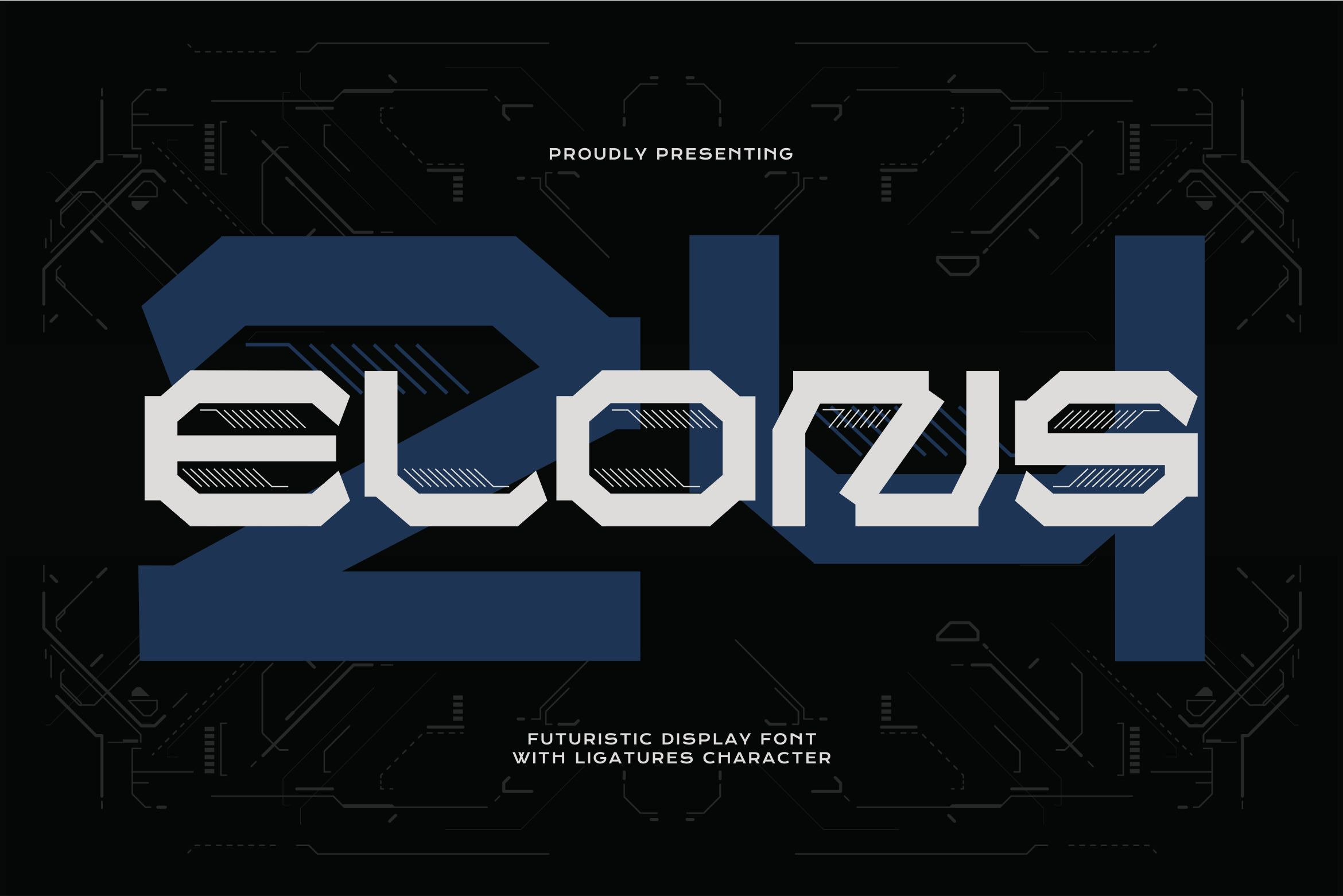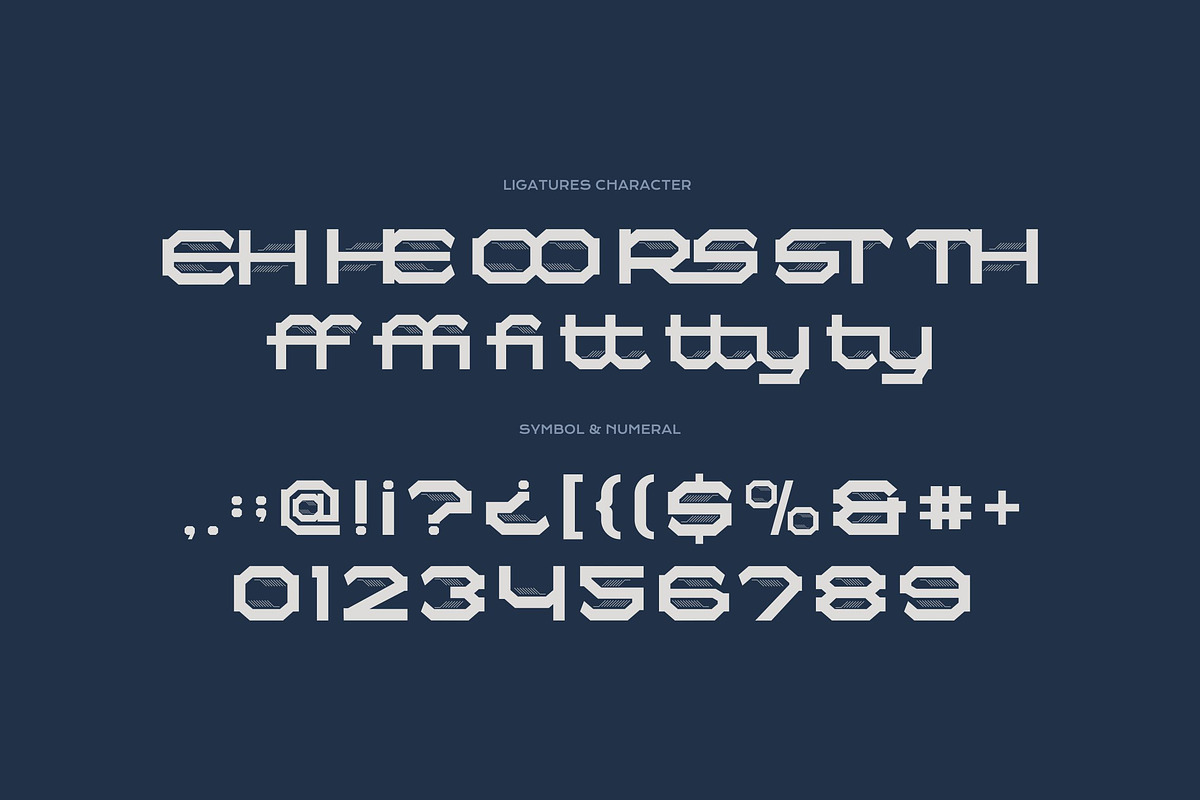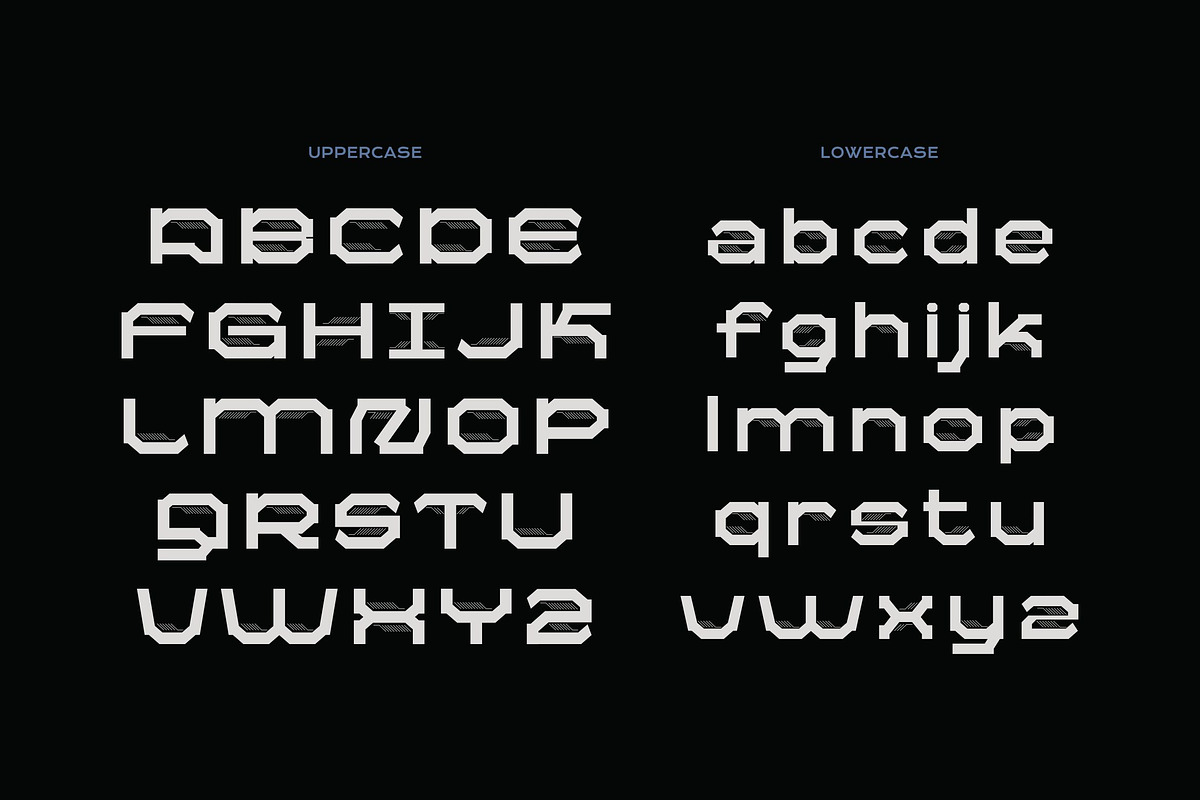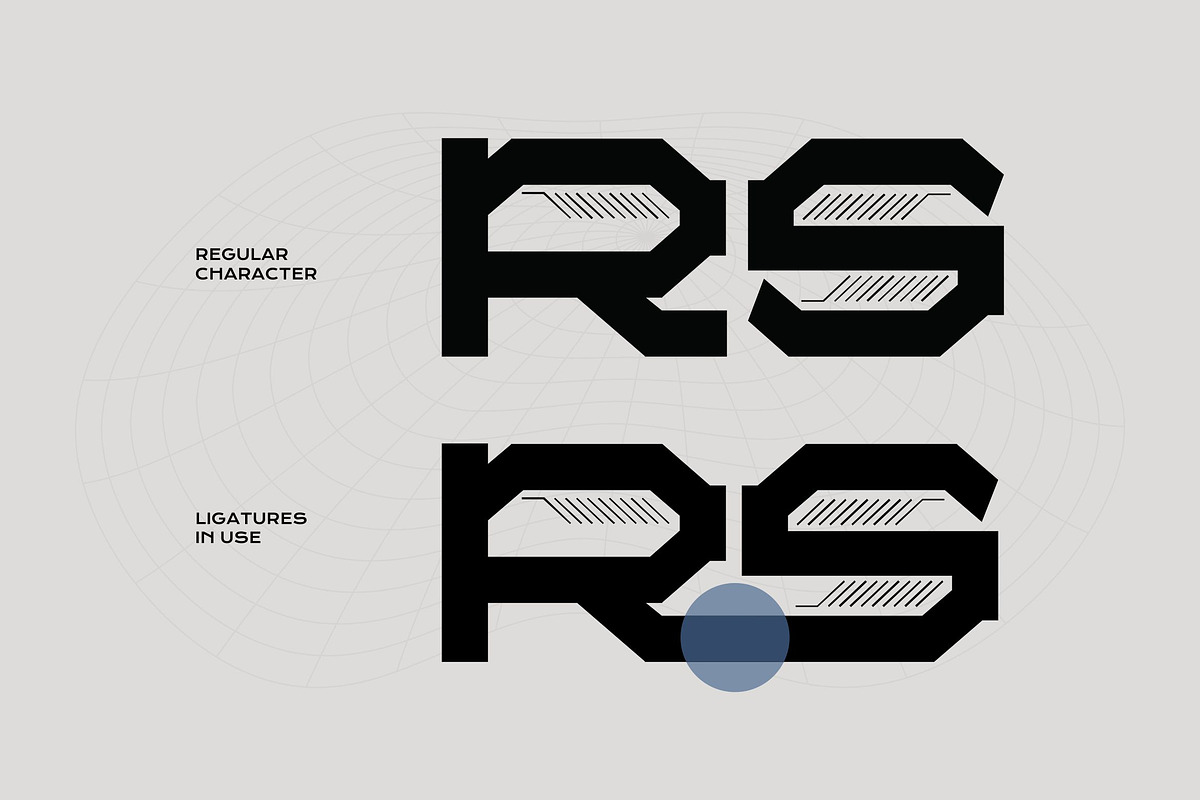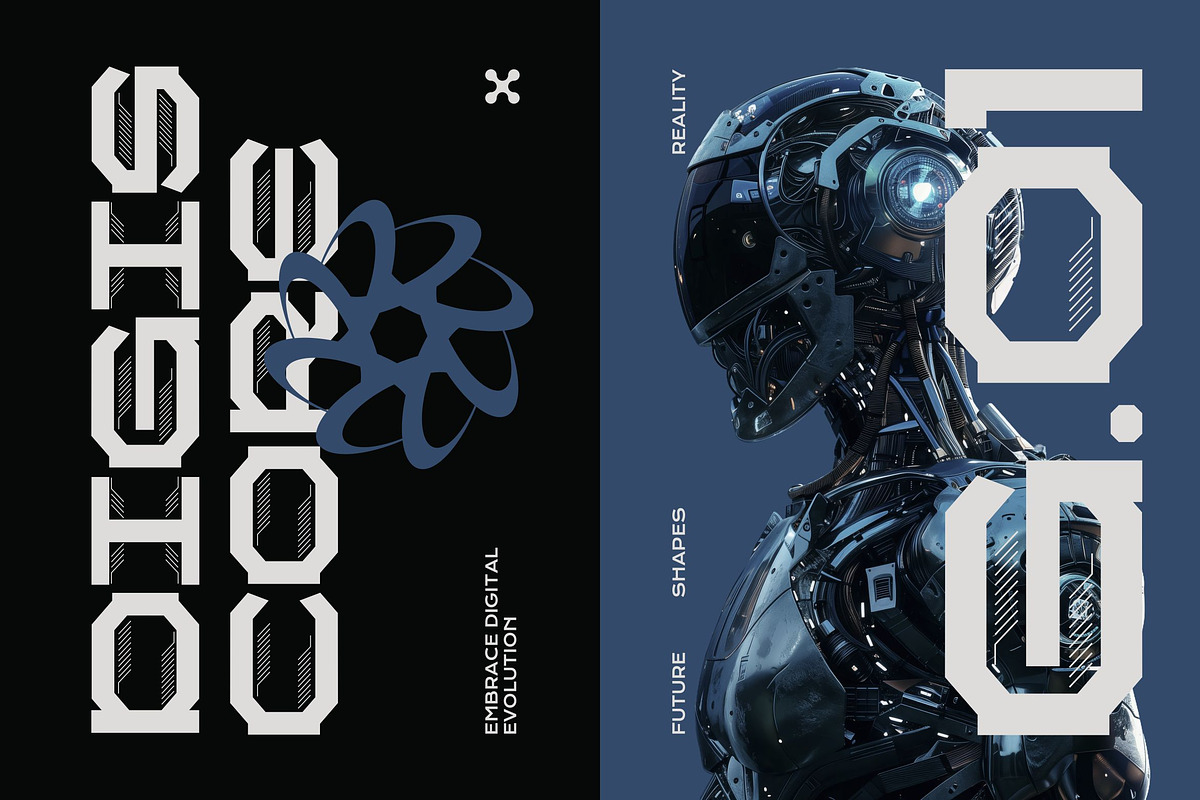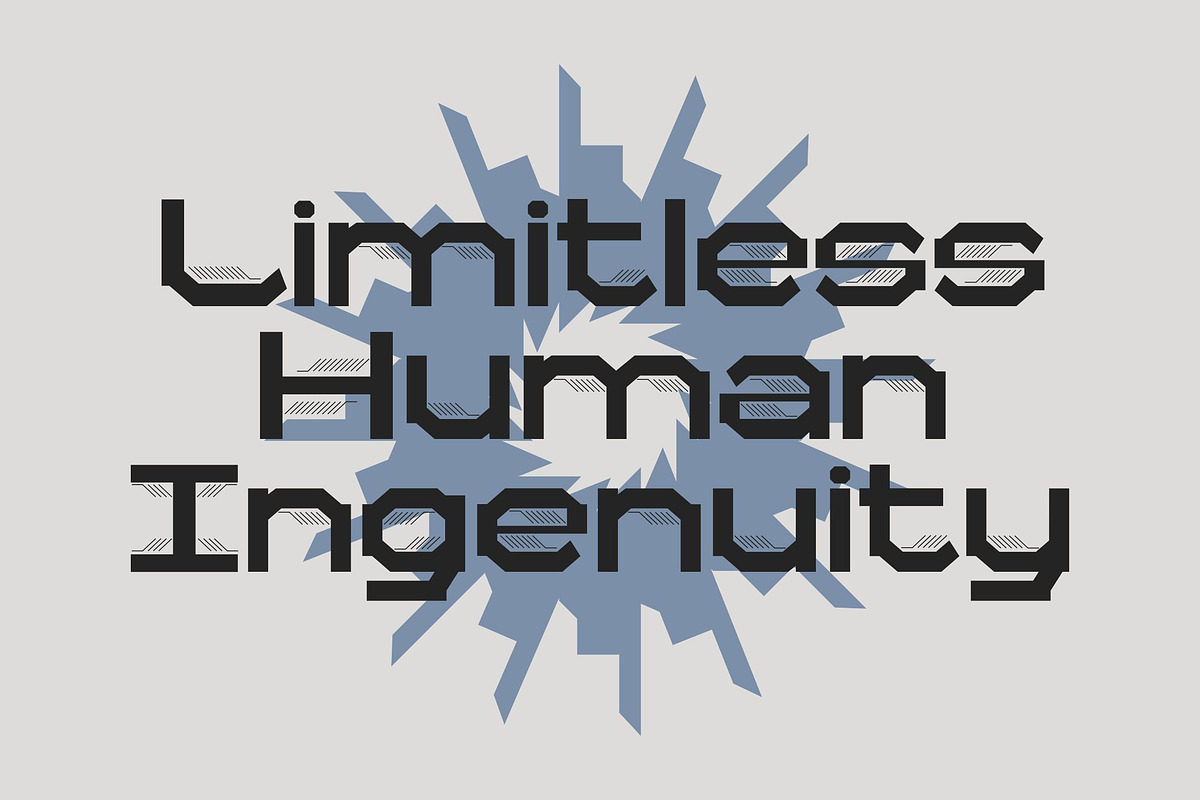
Elons - Industrial Techno Typeface
Step into the future with Elons, a powerful and commanding display font designed to make a bold statement. Drawing inspiration from the world of science fiction and cybernetics, Elons features a strong, geometric structure with a distinctively wide stance.
Each letterform is meticulously crafted with sharp, chamfered corners and unique inline detailing, giving it a mechanical and sophisticated feel. This intricate pattern adds depth and texture, making your text pop with digital energy. Whether you're designing a logo for a tech startup, creating a stunning movie title, or branding an esports team, Elons provides the impact you need.
To elevate your designs further, Elons comes packed with a set of unique ligatures that add a custom, fluid touch to your typography. This is the ultimate tool for creating powerful gaming and esports branding, unforgettable movie poster titles, and immersive tech-themed websites. Use it to craft sleek user interfaces and launch your next futuristic event with high-impact promotions.